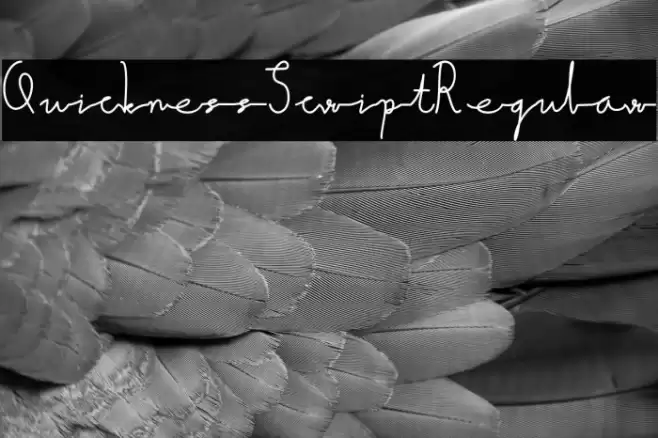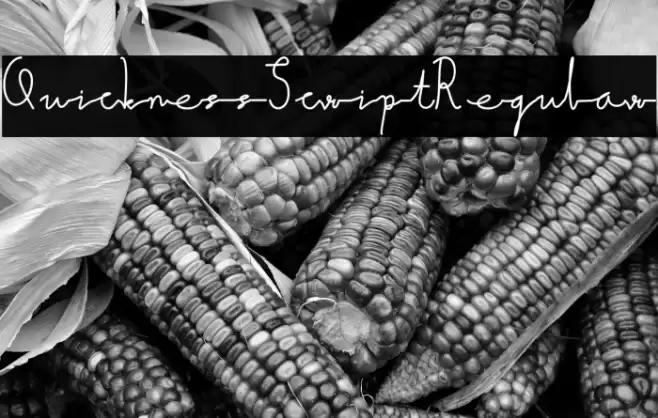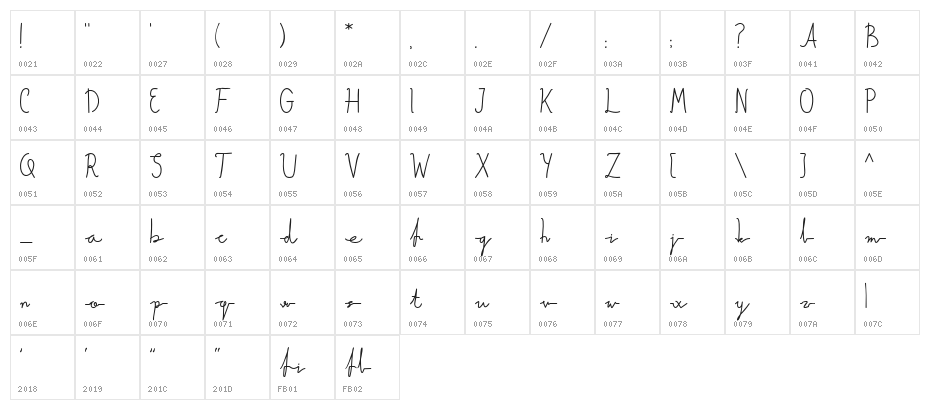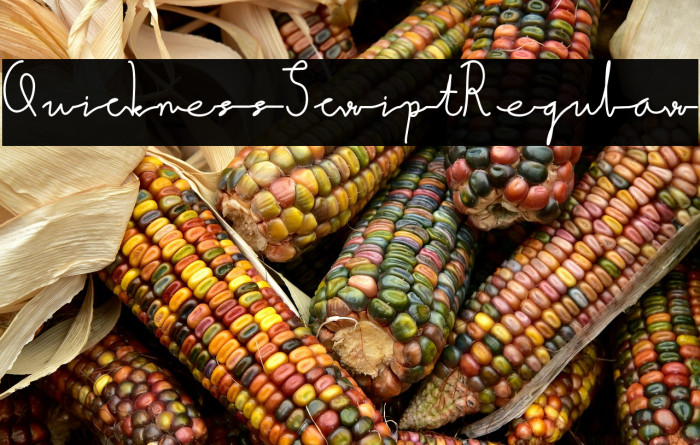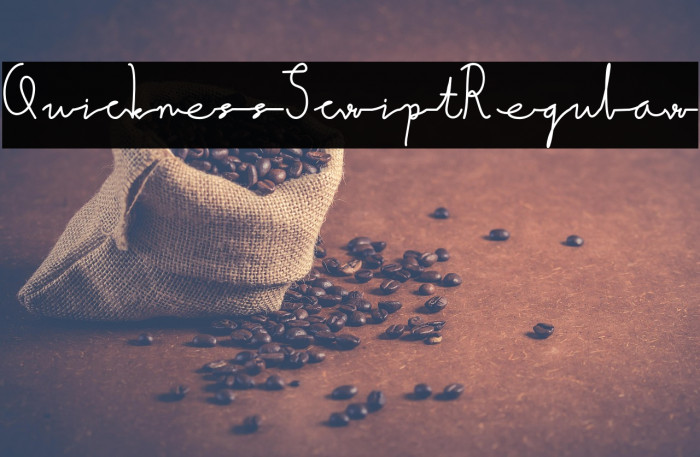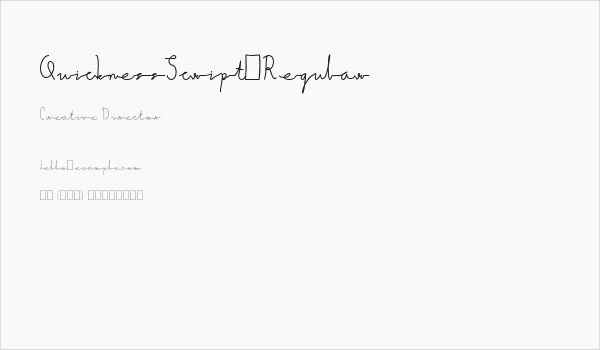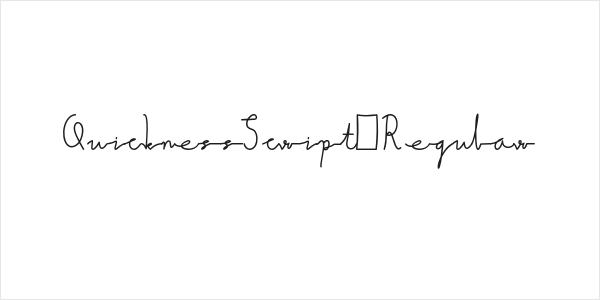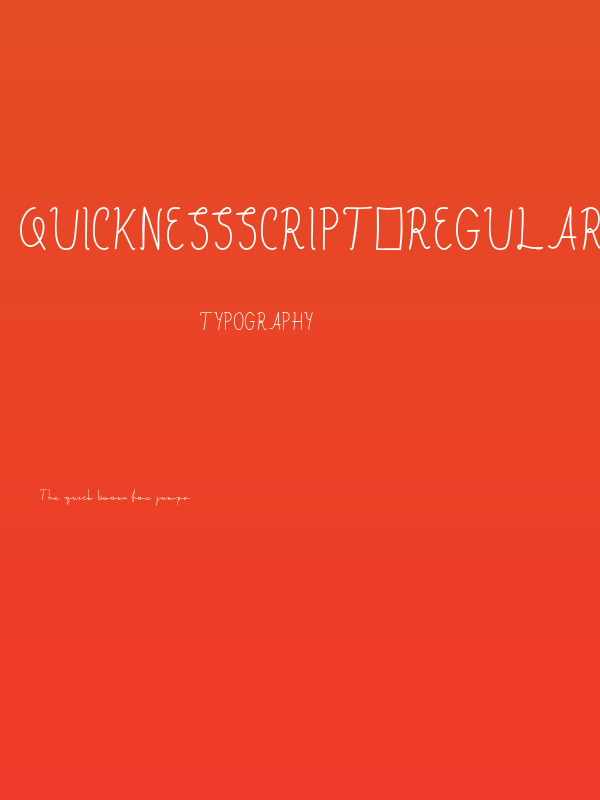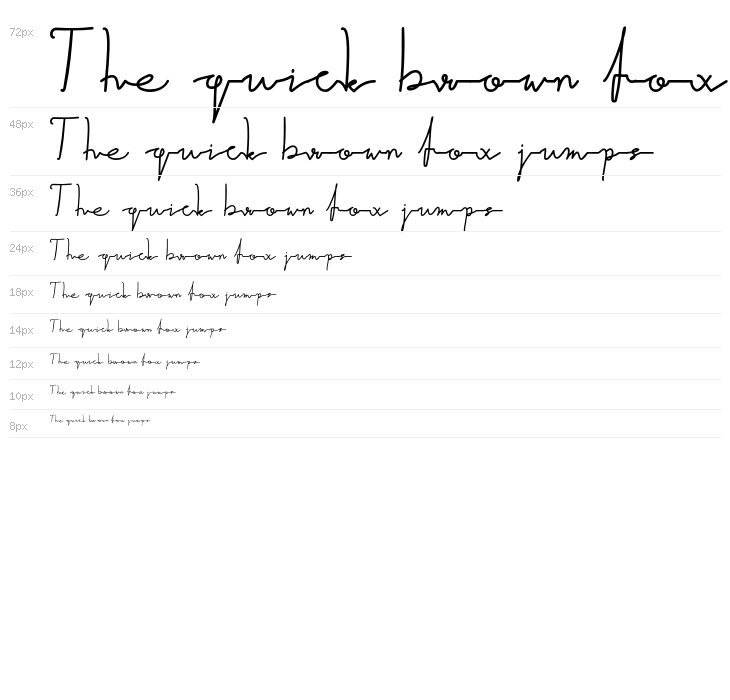
QuicknessScript-Regular Font
QuicknessScript-Regular Description
This font features a playful and casual handwritten style, characterized by its flowing, cursive-like strokes. The uppercase letters are tall and slightly narrow, with a whimsical touch that adds personality. The lowercase letters maintain a consistent flow, with some letters extending below the baseline, enhancing its script-like appearance. The font has a light weight, contributing to its airy and informal feel. The character spacing is normal, allowing for readability while maintaining its artistic flair. The font's overall style is modern and decorative, making it suitable for creative projects.
A playful, handwritten script font with a modern, decorative style from Regular fonts.
- Proposed Projects: Ideal for greeting cards, invitations, personal branding, and creative social media graphics.
- Weight: Light
- Overall Style: Modern, Decorative
- Use Case: Logos, Headlines, Creative projects